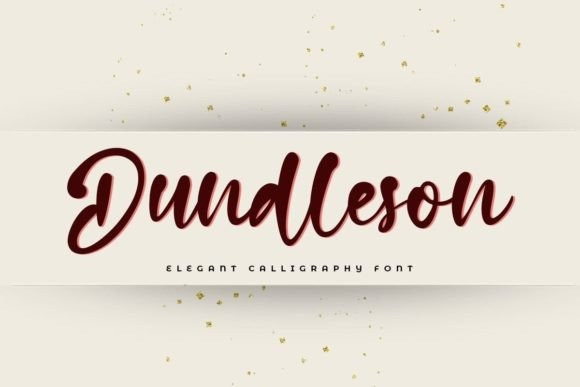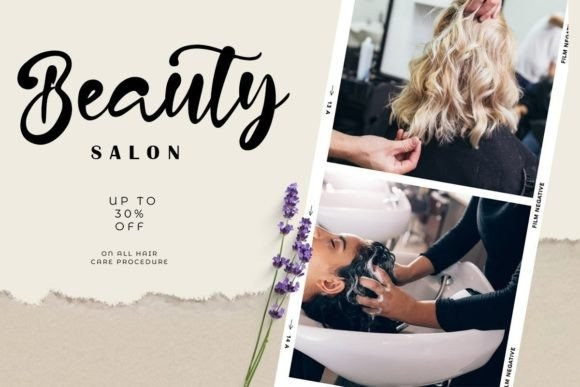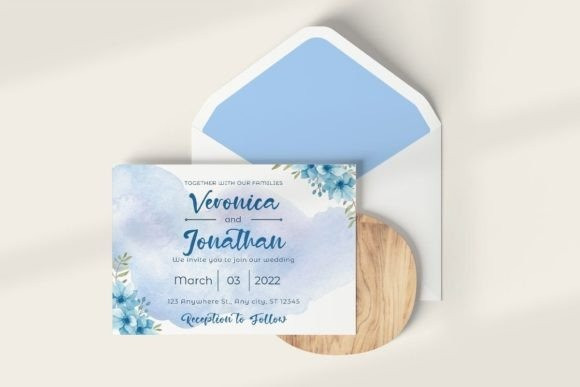
Dundleson Font
Dundleson is a beautiful handwritten font that will make your work stand out through its unique and eye-catching shape. Perfect for product packaging, branding projects, or wherever you want to add a personal touch.